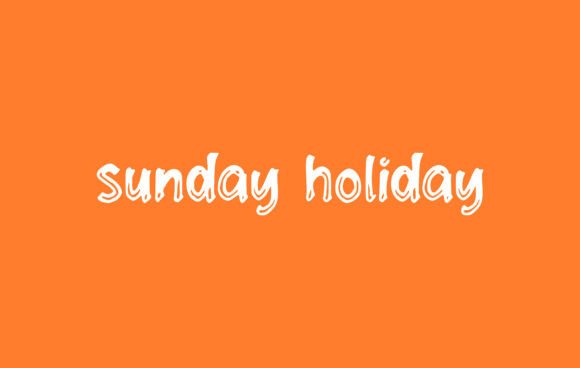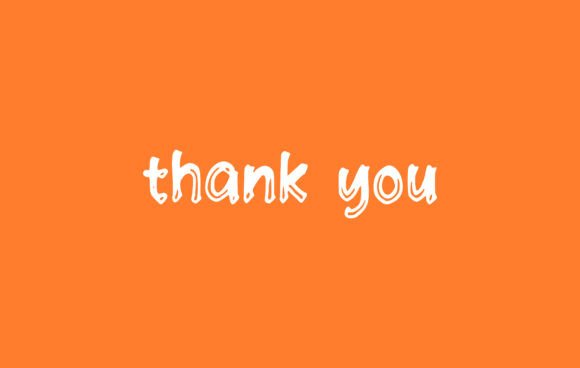
Introduction to Quickquirk Font
As a designer, there’s nothing quite like the thrill of discovering a new font that brings your creative ideas to life. I still remember the moment I stumbled upon the Quickquirk Font – it was love at first sight. The authentic handwritten style with a romantic touch had me hooked, and I knew I had to learn more about this design treasure. With its legibility and versatility, this font has become a go-to resource for many designers, and I’m excited to share its story with you.
Key Features of Quickquirk Font
- High-quality, unique typography design perfect for creative projects.
- Comes with a transparent background, making it easy to use in various design contexts.
- Designed with a large x-height, making it highly legible and suitable for both digital and print media.
- Features a high resolution of 300 DPI, ensuring crisp and clear typography in any design project.
- Perfect for designers, artists, and writers seeking a distinctive and creative font for their next project.
Honest Review: Quickquirk Font
As a designer, I’m always on the lookout for high-quality design resources to elevate my creative projects. Recently, I stumbled upon the Quickquirk Font, and I’m excited to share my honest review.
- ✨ Unique and quirky design style that adds a touch of personality to any project.
- ✨ High-quality font files that ensure crisp and clear rendering, even on high-resolution displays.
The Quickquirk Font is perfect for designers who want to add a creative twist to their projects. The transparent background option allows for seamless integration with various design elements, making it a valuable design resource.
- ⚠️ Limited font styles and weights may not be suitable for complex or multi-font projects.
- ⚠️ Some users may find the quirky design style too bold or overpowering for certain projects.
Overall, I’m impressed with the Quickquirk Font’s unique design style and high-quality font files. While it may have some limitations, it’s an excellent choice for designers who want to add a creative touch to their projects.
The Quickquirk Font is a high-quality, free design resource ideal for creative projects requiring a unique touch. With its transparent background, this font is perfect for designers looking to add a touch of elegance to their work.
The Quickquirk Font is ideal for various design projects, including:
- Logo design and branding.
- Infographic design and data visualization.
- Print and digital marketing materials.
- Web design and development.